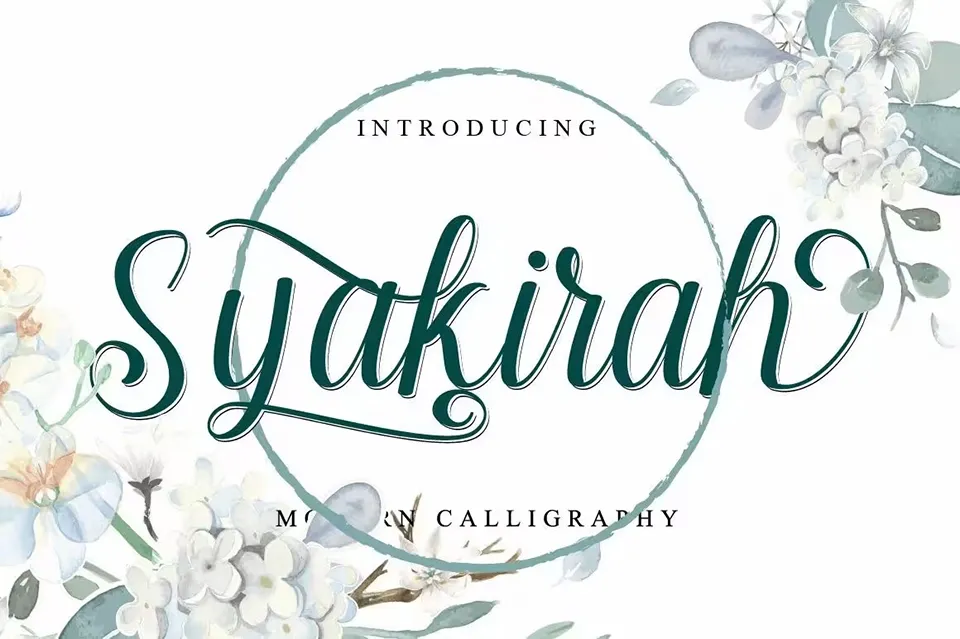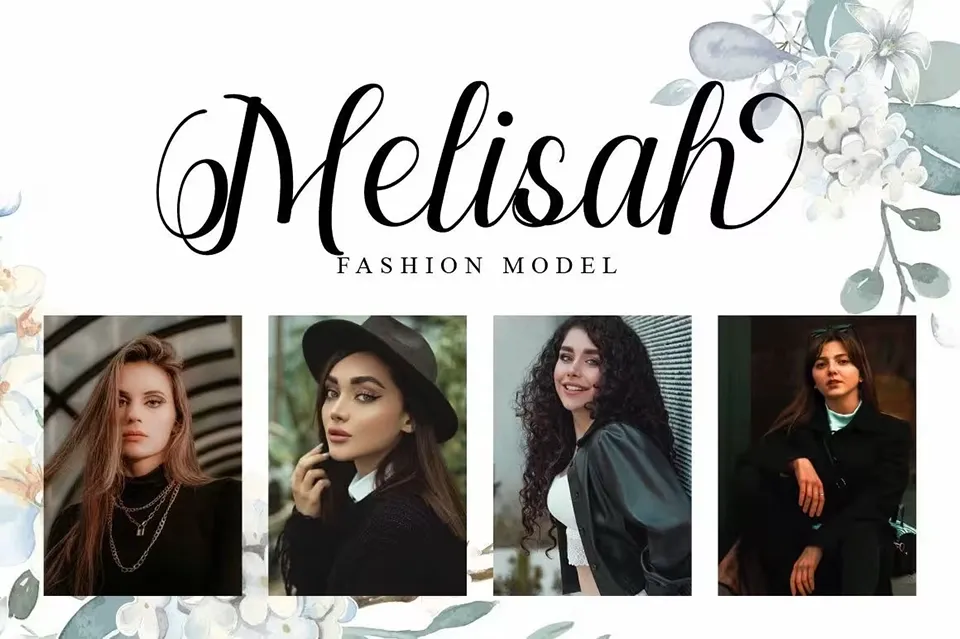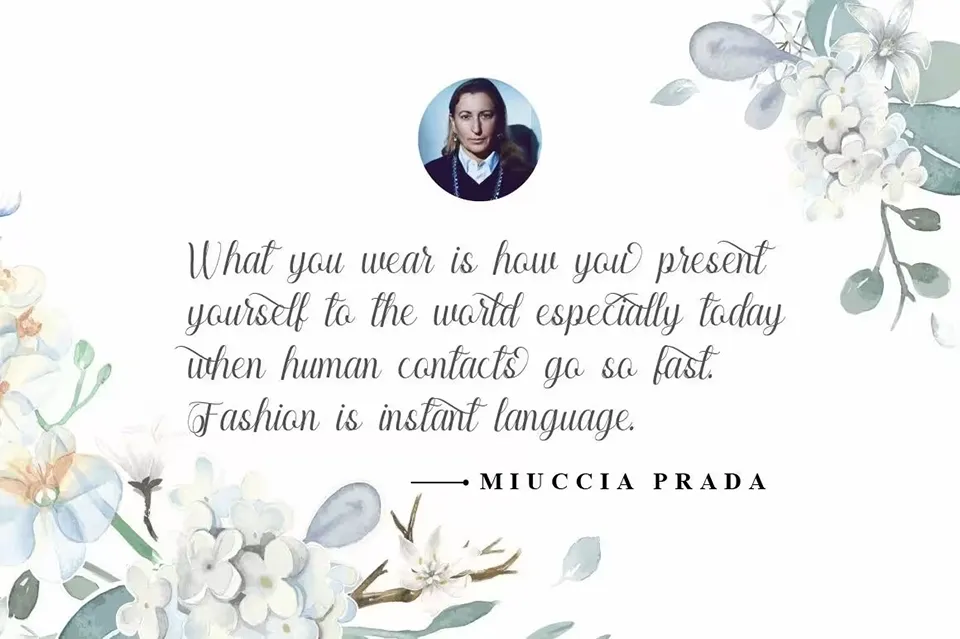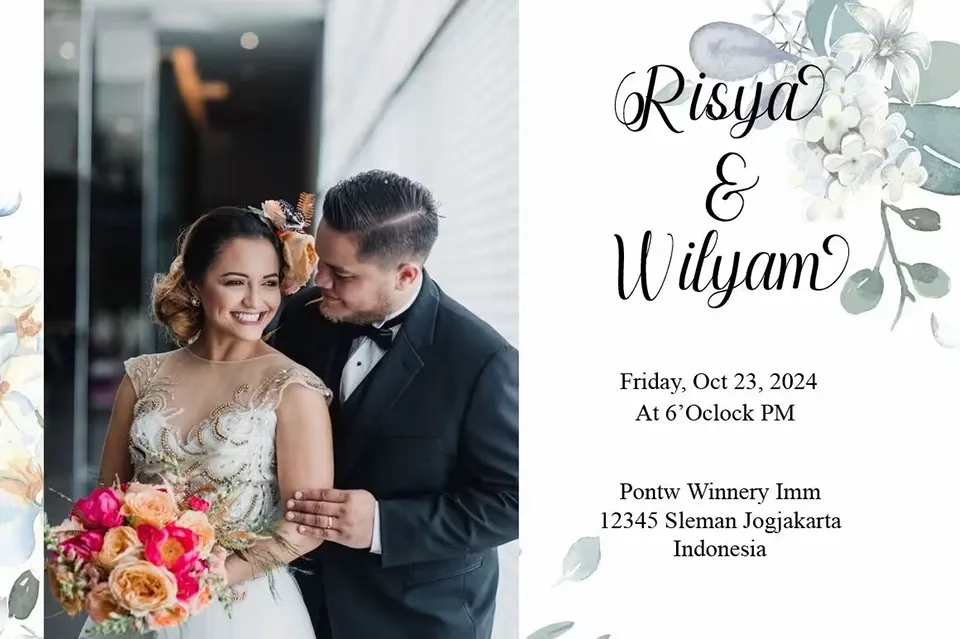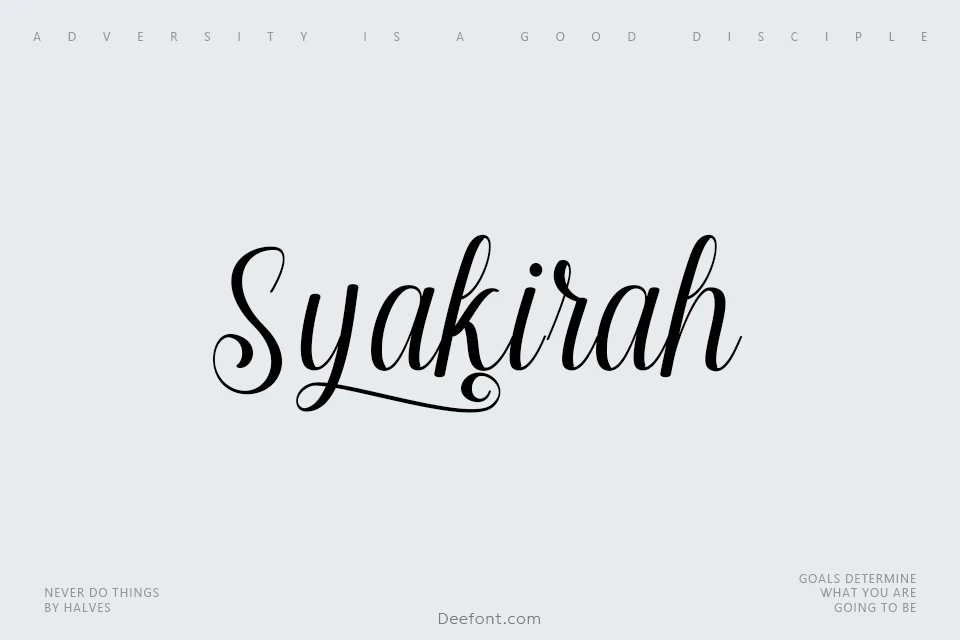
Syakirah Font
The Syakirah Font is a modern calligraphy typeface designed by Fiqiart. It features dazzling, thin, and highly detailed script lettering, making it ideal for elegant invitations, branding, and creative designs. The font supports multiple languages and is PUA encoded, allowing easy access to its stylistic alternates and glyphs.